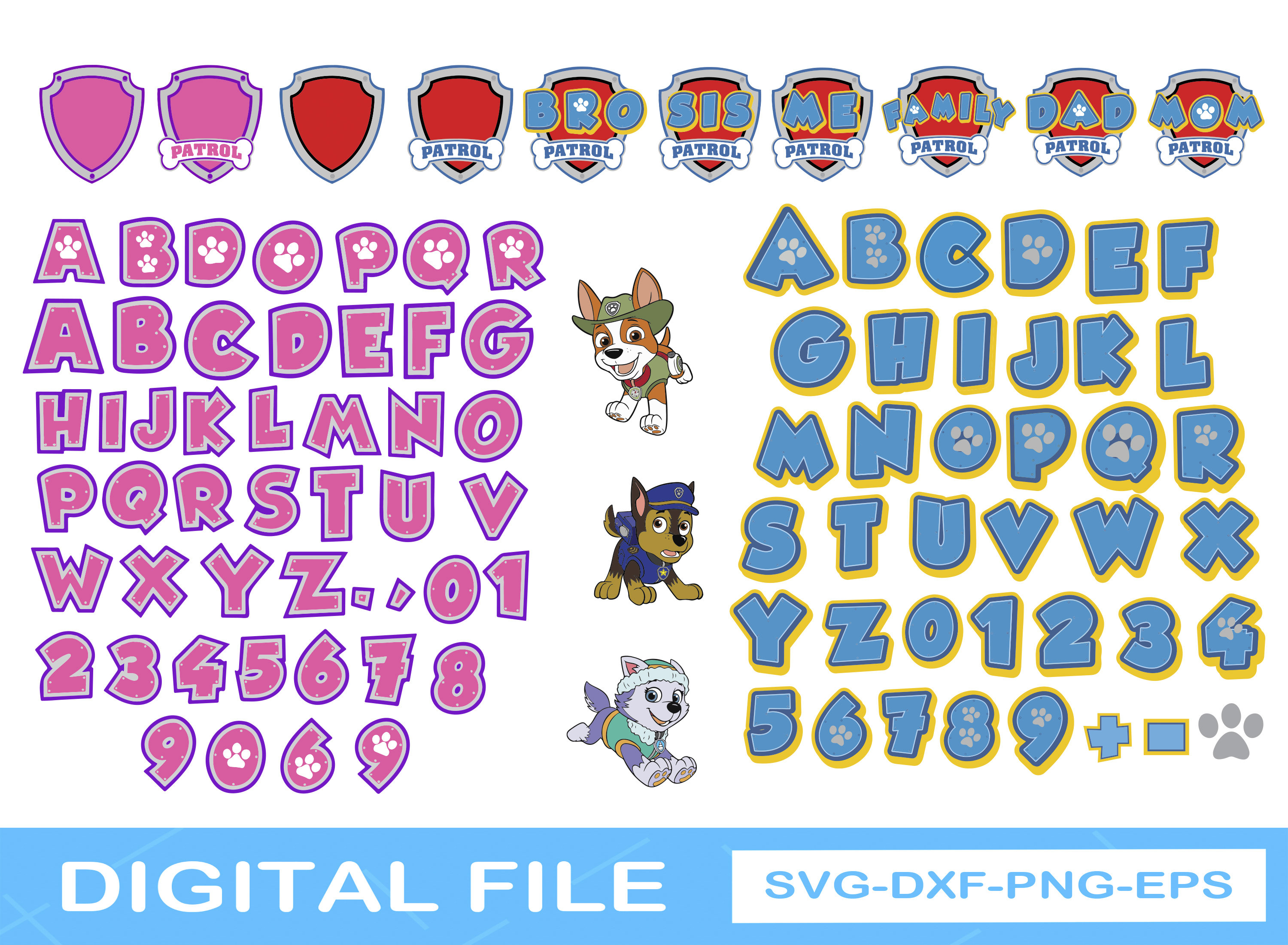
Paw Patrol Font Dafont
Paw Patrol Font Dafont - Paw patrol suggested by schlacter. Web the paw patrol font family is based on an animated television show that was created by keith chapman. Paw patrol font suggested by campos.garza. Web this free font family can have multiple kinds of style, numerals as well as lining and text figures.
Web this free font family can have multiple kinds of style, numerals as well as lining and text figures. Paw patrol font suggested by campos.garza. Paw patrol suggested by schlacter. Web the paw patrol font family is based on an animated television show that was created by keith chapman.
Paw patrol font suggested by campos.garza. Web this free font family can have multiple kinds of style, numerals as well as lining and text figures. Web the paw patrol font family is based on an animated television show that was created by keith chapman. Paw patrol suggested by schlacter.
Web the paw patrol font family is based on an animated television show that was created by keith chapman. Web this free font family can have multiple kinds of style, numerals as well as lining and text figures. Paw patrol font suggested by campos.garza. Paw patrol suggested by schlacter.
Paw patrol font suggested by campos.garza. Paw patrol suggested by schlacter. Web this free font family can have multiple kinds of style, numerals as well as lining and text figures. Web the paw patrol font family is based on an animated television show that was created by keith chapman.
Web this free font family can have multiple kinds of style, numerals as well as lining and text figures. Paw patrol suggested by schlacter. Paw patrol font suggested by campos.garza. Web the paw patrol font family is based on an animated television show that was created by keith chapman.
Paw patrol font suggested by campos.garza. Paw patrol suggested by schlacter. Web this free font family can have multiple kinds of style, numerals as well as lining and text figures. Web the paw patrol font family is based on an animated television show that was created by keith chapman.
Web this free font family can have multiple kinds of style, numerals as well as lining and text figures. Paw patrol suggested by schlacter. Web the paw patrol font family is based on an animated television show that was created by keith chapman. Paw patrol font suggested by campos.garza.
Web the paw patrol font family is based on an animated television show that was created by keith chapman. Web this free font family can have multiple kinds of style, numerals as well as lining and text figures. Paw patrol font suggested by campos.garza. Paw patrol suggested by schlacter.
Web this free font family can have multiple kinds of style, numerals as well as lining and text figures. Paw patrol font suggested by campos.garza. Web the paw patrol font family is based on an animated television show that was created by keith chapman. Paw patrol suggested by schlacter.
Paw patrol font suggested by campos.garza. Paw patrol suggested by schlacter. Web the paw patrol font family is based on an animated television show that was created by keith chapman. Web this free font family can have multiple kinds of style, numerals as well as lining and text figures.
Paw patrol suggested by schlacter. Web the paw patrol font family is based on an animated television show that was created by keith chapman. Web this free font family can have multiple kinds of style, numerals as well as lining and text figures. Paw patrol font suggested by campos.garza.
Paw Patrol Suggested By Schlacter.
Web this free font family can have multiple kinds of style, numerals as well as lining and text figures. Paw patrol font suggested by campos.garza. Web the paw patrol font family is based on an animated television show that was created by keith chapman.